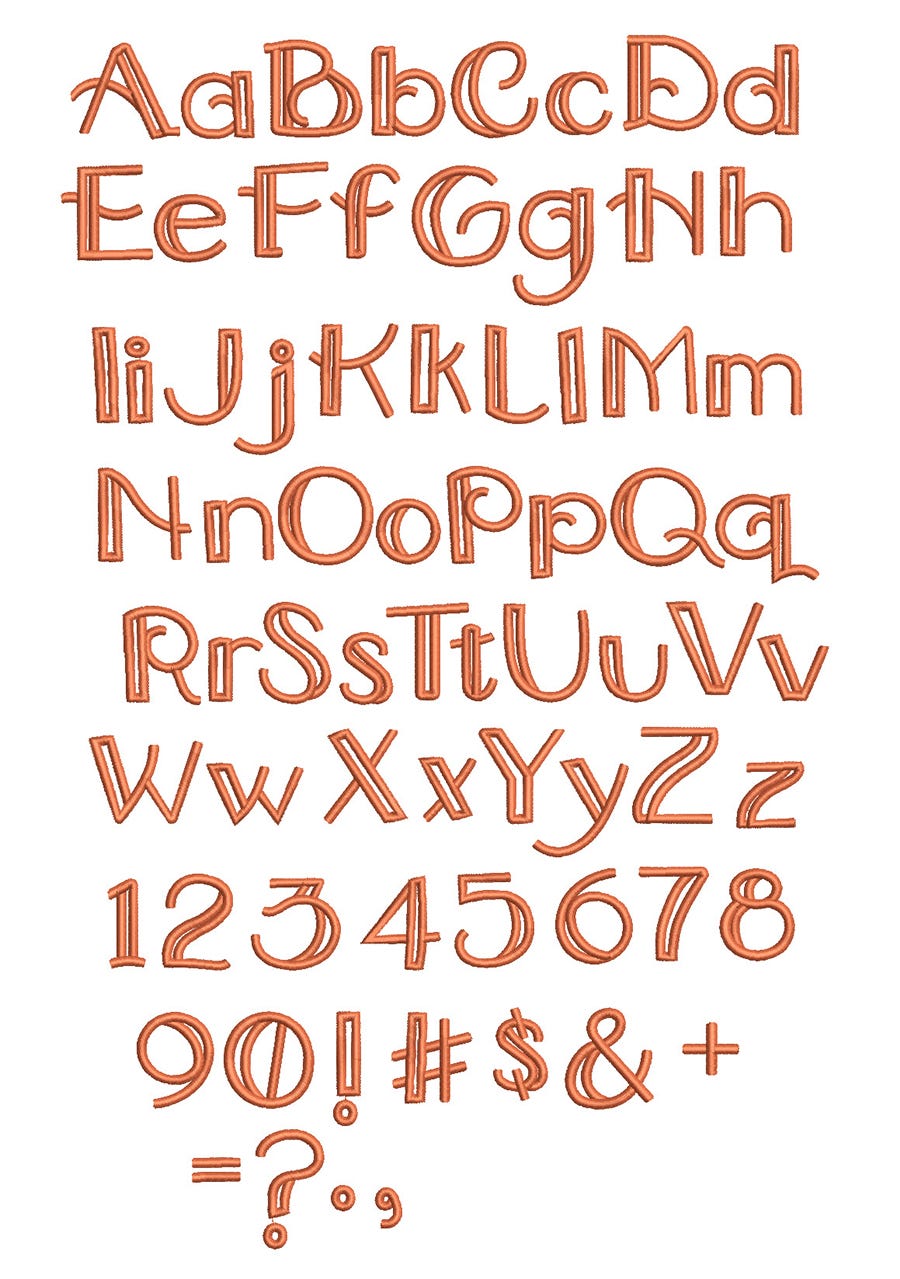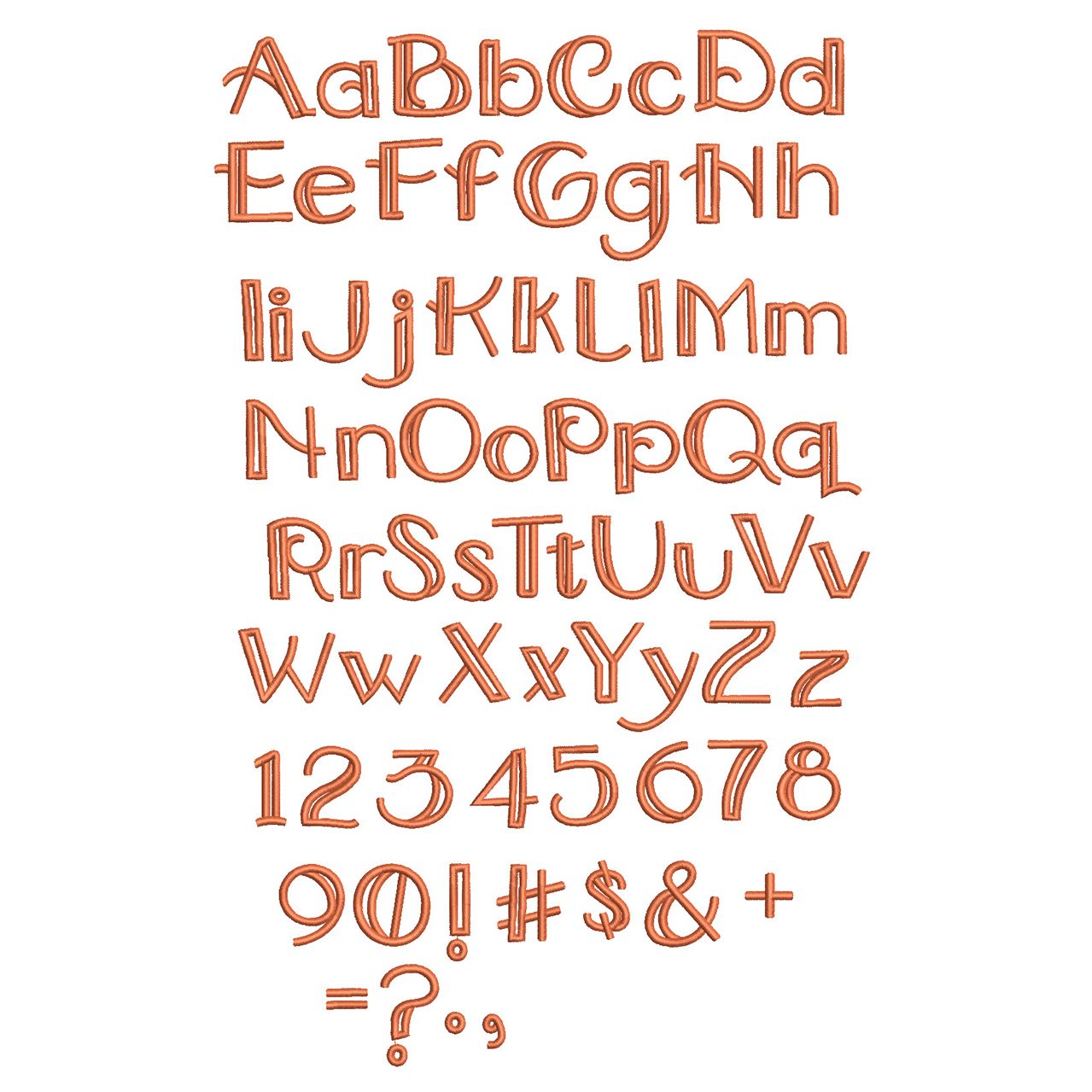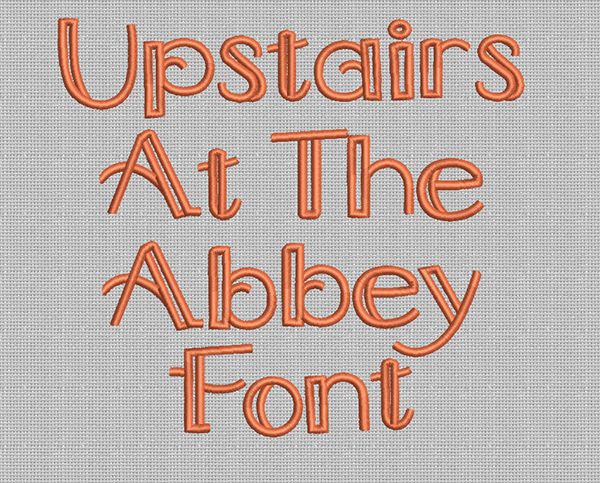
Upstairs at the Abbey Satin Stitch Embroidery Font
A reallyf un, whimsical double line font!  100% manually digitized to bring you maximum stitch quality.